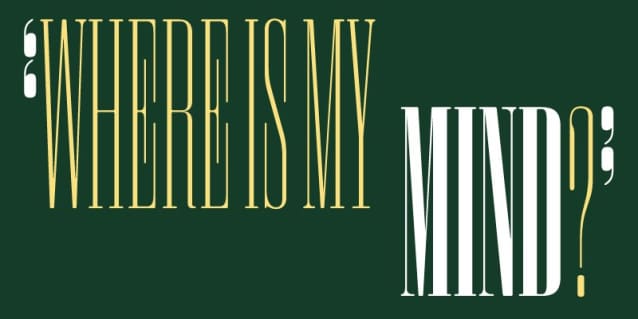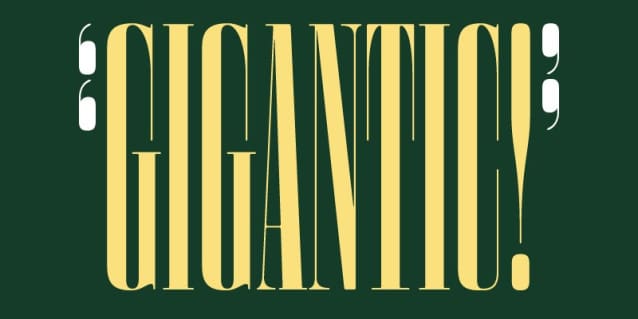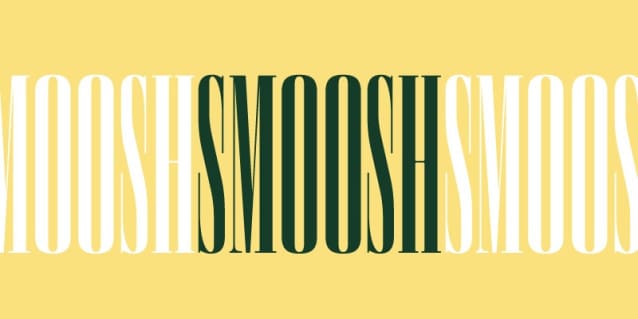
Smoosh Font Family
Smoosh Font Family, is a hyper-compressed, aggressively high-contrast typeface with extremely pointy serifs. The delicate, obnoxious forms give text a “That’s pretty, but what does it say!?” feel.